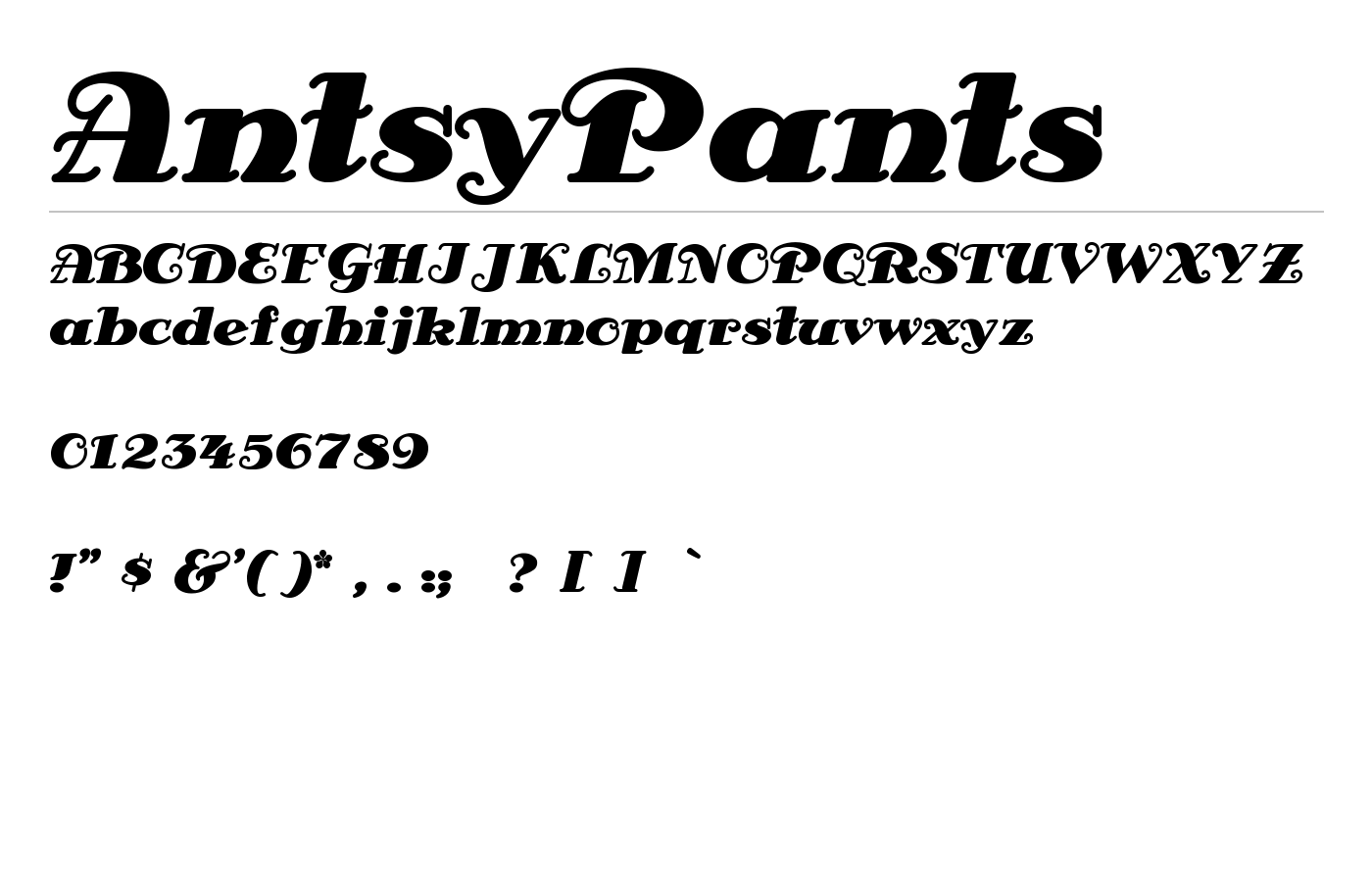
AntsyPants is a bold serif font with a playful yet sophisticated personality, featuring high contrast between thick and thin strokes and distinctive curly terminals that add charm to its design. Its strong presence and unique letterforms make it ideal for eye-catching headlines, logos, and packaging where a vintage yet lively feel is desired. This font works well for brands seeking elegance with a touch of whimsy, standing out in editorial and fashion contexts.
AntsyPants Font